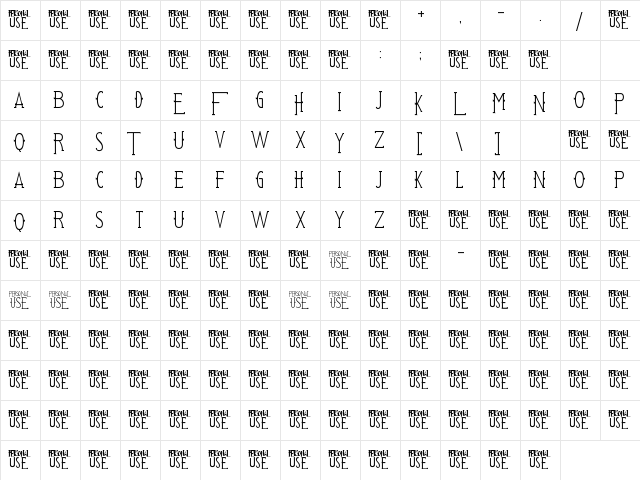
Nothing Left Regular
| Foundry | LJ-Design Studios |
| Designer | Luis Jaramillo |
Design Context for Nothing Left Typeface
Nothing Left is a composed and adaptable typeface that performs quietly and consistently across a wide range of design contexts. The delicate stroke weight brings airiness and refinement to layouts.